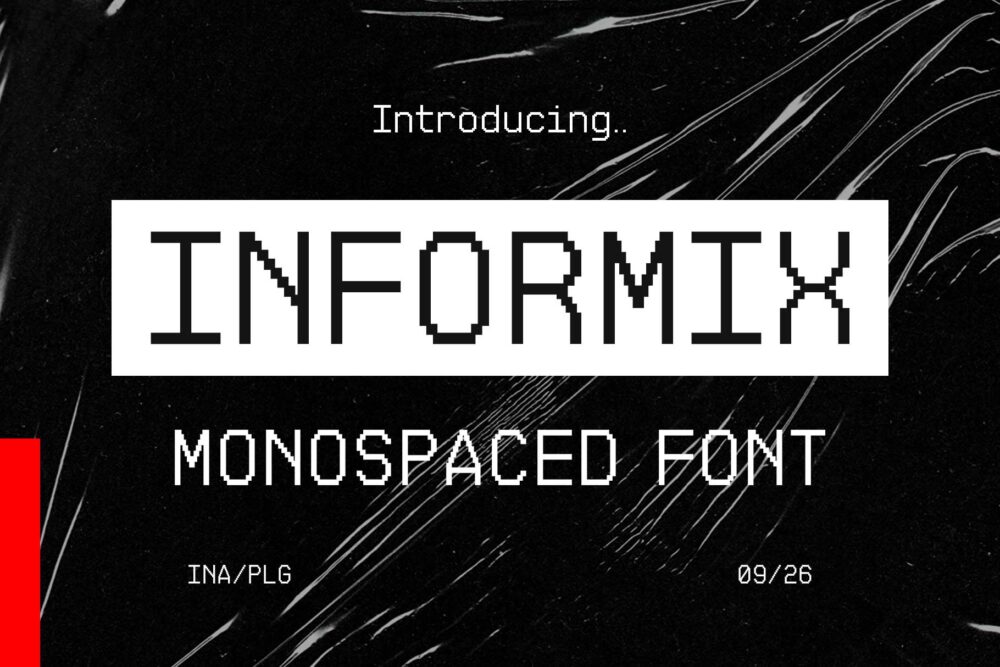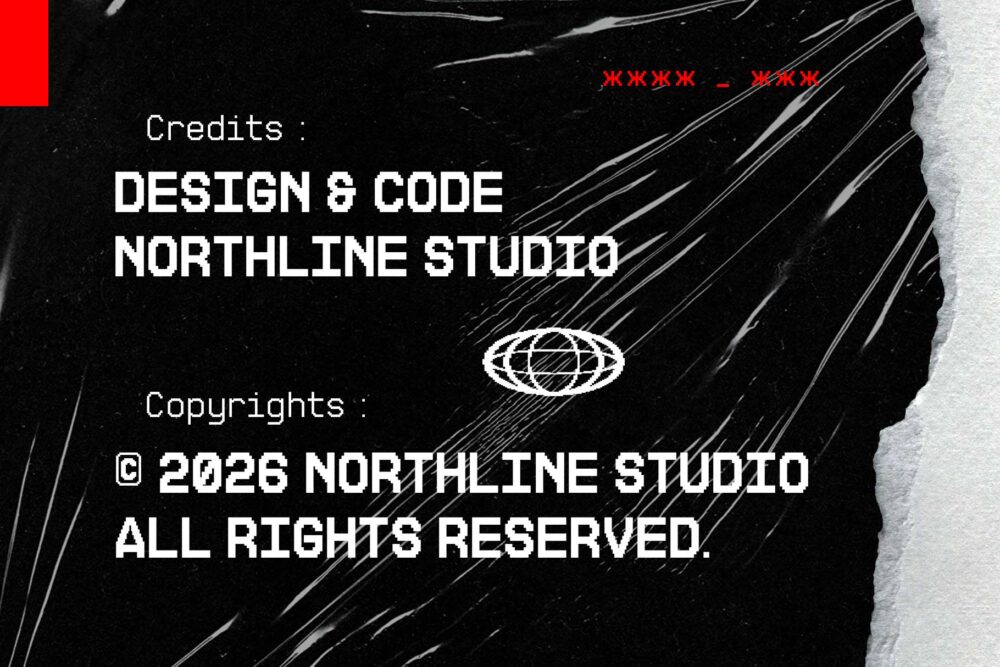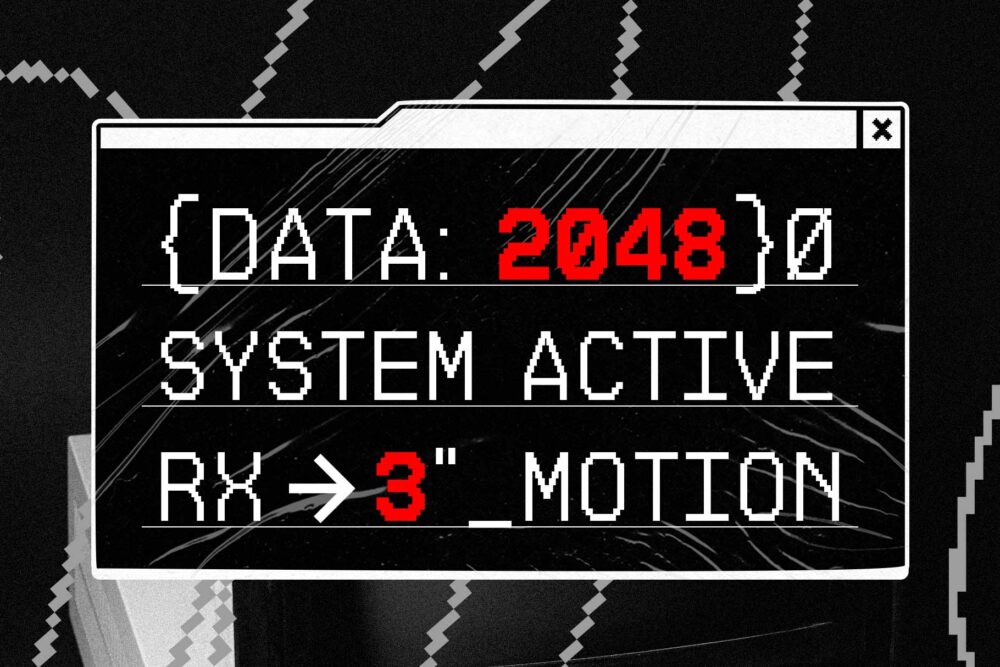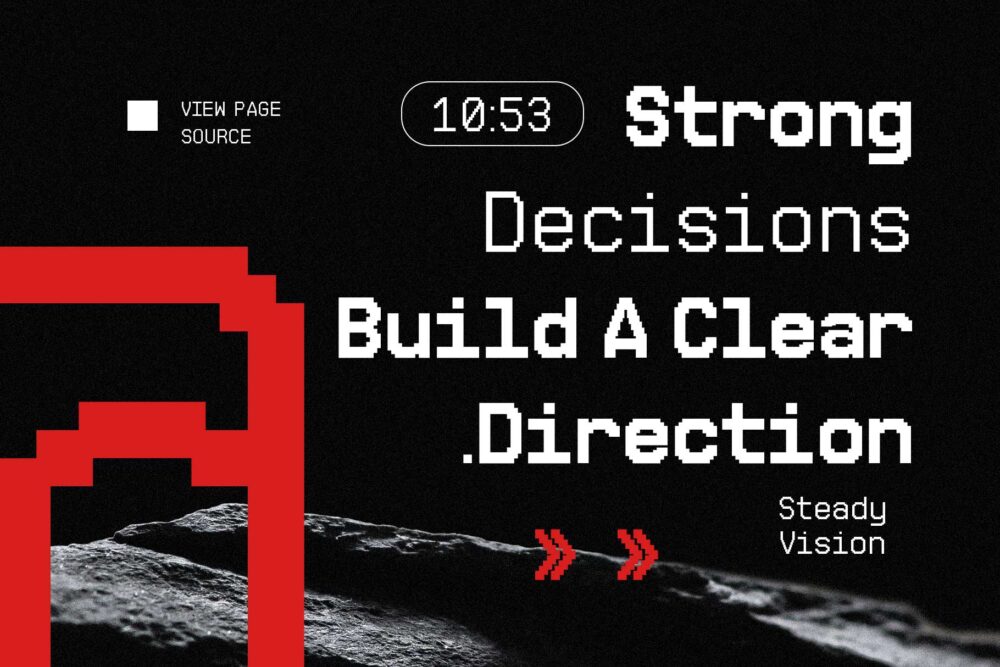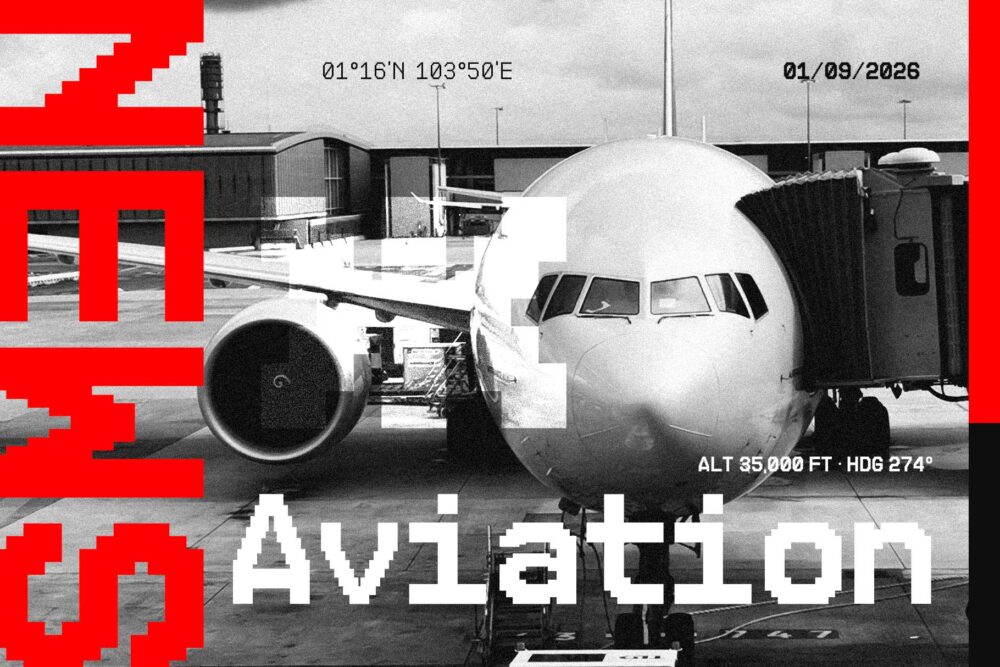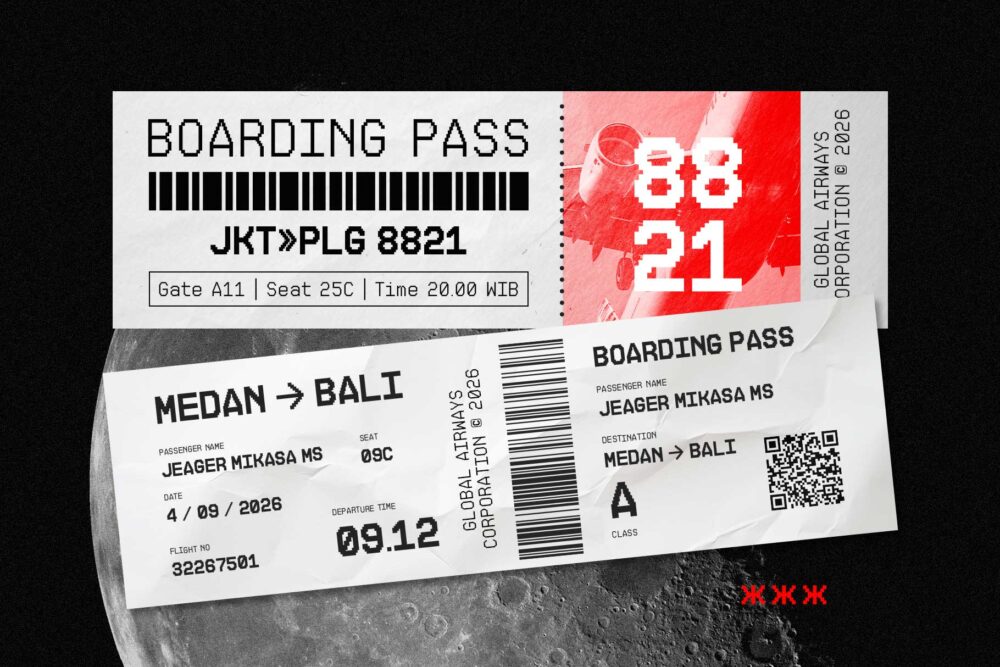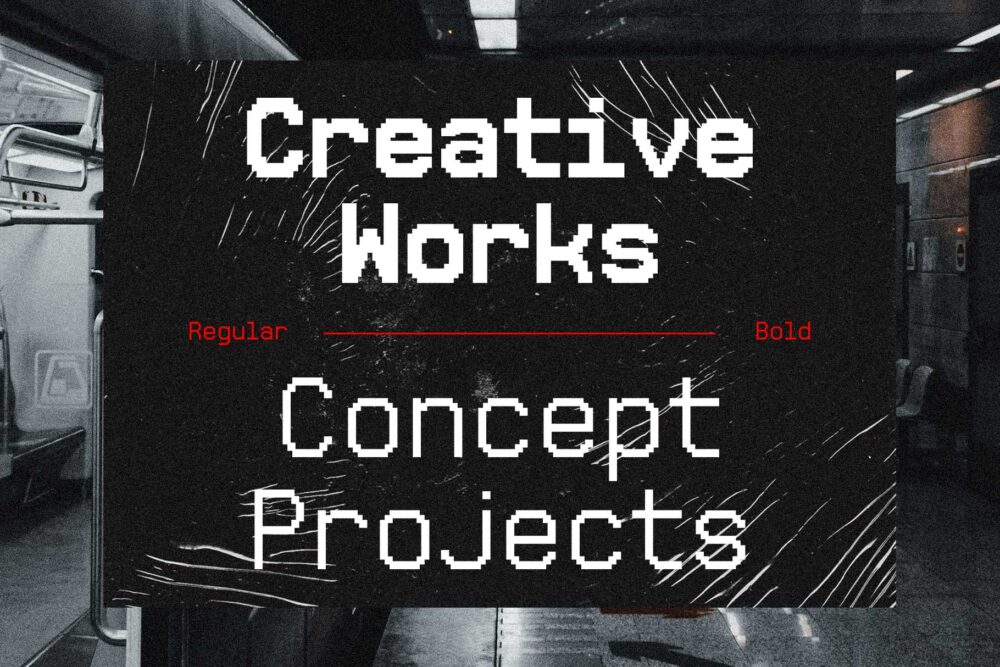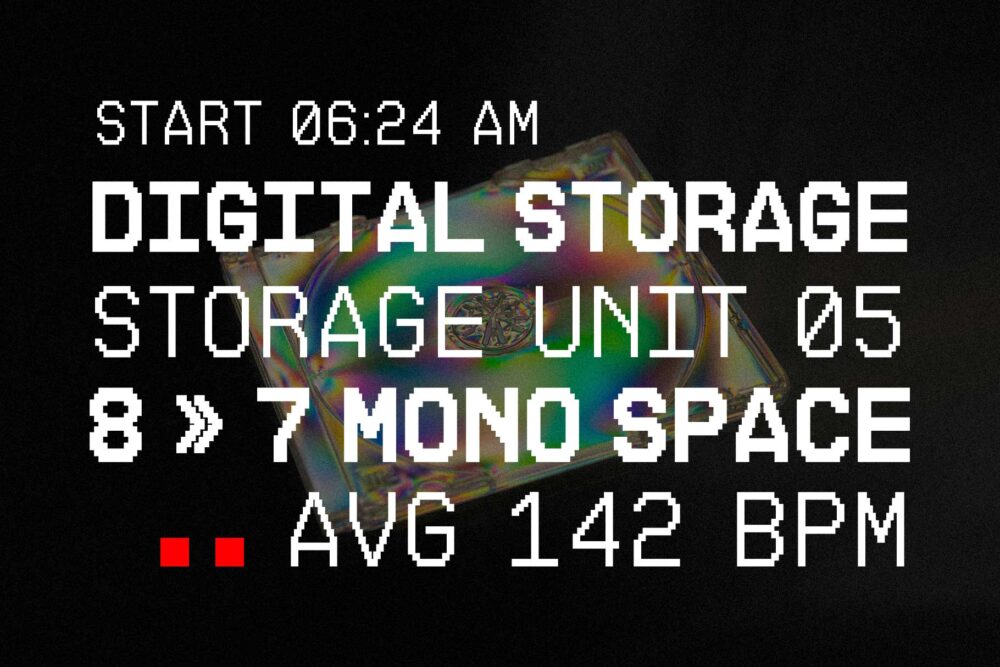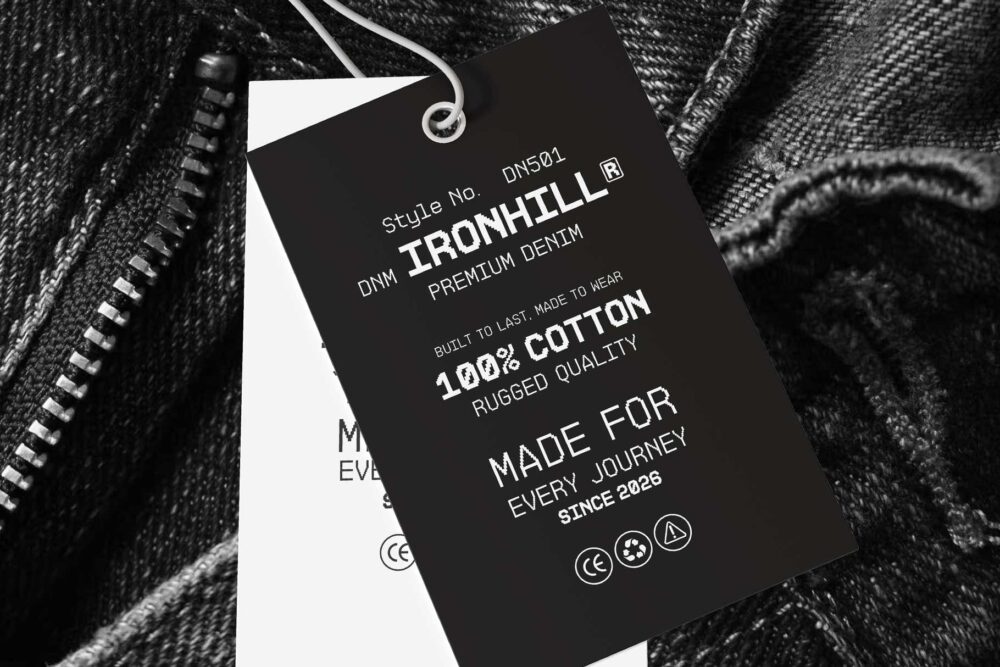
Informix retro techno monospaced font inspired by classic computer terminals and digital technology
Informix - Regular
Informix - Bold
Informix is a retro techno monospaced typeface inspired by the visual language of early computer systems, digital terminals, and classic electronic technology. Built with clean modular forms, stepped details, and pixel-inspired curves, it delivers a distinctive mechanical rhythm that feels nostalgic, technical, and unmistakably digital.
Designed with a consistent monospaced structure, every character occupies the same width, creating precise alignment and a strong system-like appearance. Informix comes in Regular and Bold styles, giving you the flexibility to create everything from detailed technical layouts and interface-inspired graphics to bold, eye-catching headlines.
With its combination of retro digital aesthetics and modern construction, Informix is perfect for branding, posters, album artwork, gaming projects, editorial layouts, UI-inspired graphics, and experimental design. Whether you’re creating something inspired by vintage technology or building a bold techno identity, Informix brings a structured and distinctive digital character to your work.
Informix – Retro Techno Monospaced Font